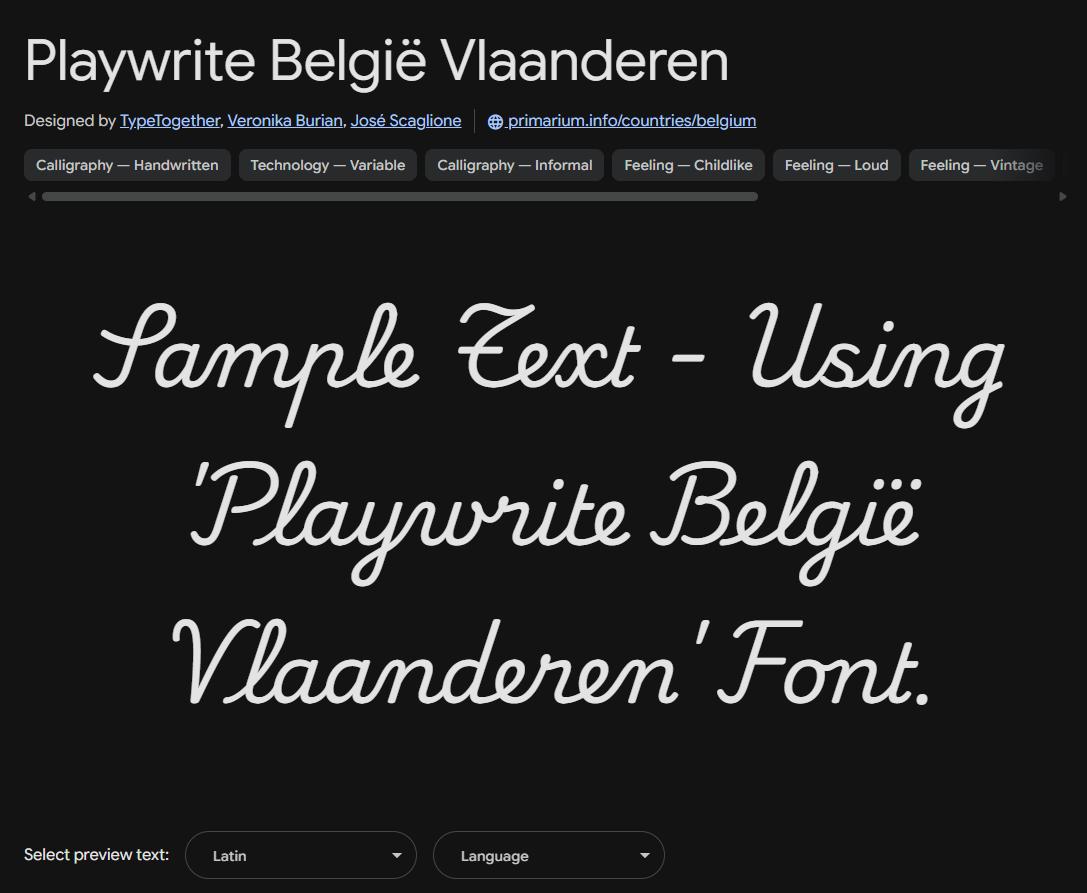
Playwrite België Vlaanderen, a collaborative achievement by Veronika Burian and José Scaglione of TypeTogether, represents a sophisticated synthesis of regional pedagogical tradition and contemporary variable font architecture. Engineered as a single-axis variable typeface, it provides granular control over stroke weight while meticulously preserving the rhythmic ductus and specific letterforms mandated by Flemish educational standards. This digital script leverages advanced interpolation to maintain the integrity of its cursive joins, ensuring that the fluid connectivity essential to Belgian handwriting remains consistent across diverse display resolutions. By integrating regional typographic nuances with a robust font-variation-settings framework, Playwrite België Vlaanderen offers a semantically rich tool for localized literacy, effectively digitizing cultural heritage through high-performance OpenType features and responsive design capabilities.
Playwrite België Vlaanderen functions as a transformative variable font (VF) that bridges the gap between traditional Belgian schoolhouse aesthetics and modern typographic technology, offering a dynamic range of weight and slant axes to capture an inherently informal, handwritten calligraphy. This typeface exudes a playful and happy spirit, intentionally balancing a childlike innocence with a rugged, vintage texture that feels remarkably loud and expressive in educational contexts. By implementing these technological interpolations, the font family provides a unique perspective on pedagogical scripts, ensuring that the spontaneous, happy strokes of primary handwriting remain semantically coherent and visually engaging across diverse digital interfaces.
Due to its specialized ductus following the Flemish pedagogical handwriting model, Playwrite België Vlaanderen is fundamentally unsuitable for high-stakes archival environments, such as legal documentation or financial auditing, where the demand for rapid legibility and optical neutrality supersedes the rhythmic, instructional loops of a school-script. While its single variable axis allows for precise weight calibration, the inherent cursive connectivity and the specific structural logic dictated by the TypeTogether team for primary education conflict with the high-speed scanning requirements of OCR (Optical Character Recognition) technologies used in enterprise data management. Furthermore, the typeface's emphasis on the fluid movement of the pen-intended to guide motor skill development-undermines the authoritative, static gravitas required for industrial safety labeling or aerospace instrumentation, where any ambiguity in letterform junctions or stroke terminals could lead to catastrophic interpretive errors in high-latency environments.
This typeface excels within minimalist, hand-crafted, or organic design themes that emphasize a personal and approachable human touch. Analyzing stroke modulation reveals that its cursive construction provides a high degree of humanist variability, making it ideal for layouts requiring a low-contrast, continuous-stroke aesthetic.
Neutral geometric sans-serifs or robust slab serifs offer a stable structural balance to the flowing and decorative nature of this script. Technical font pairing data suggests that using a high x-height companion font effectively mitigates the inherent legibility gaps found in modern decorative ascenders.
While visually striking for accents, the intricate connections and script nature of this typeface can cause reader fatigue in dense paragraphs. Rendering benchmarks indicate that script-heavy CSS implementations often suffer from reduced readability scores in long-form blocks due to the lack of horizontal whitespace between joined glyphs.
For optimal clarity on most screens, this font should generally be set at 18px or higher to ensure the delicate strokes do not break down. Quantitative testing on anti-aliasing algorithms confirms that sub-pixel rendering at small scales causes the thin stroke weight of Playwrite to lose its structural integrity.
Use this typeface for accent headers, pull quotes, or distinct callouts to create a sharp textural contrast against standard system fonts. By leveraging its unique optical sizing properties, designers can utilize the script's rhythmic motion to direct the user's focal point toward specific conversion areas.
The font family is designed with integrated glyph variations to mimic the fluid transition of actual regional handwriting styles. Its contextual alternates feature ensures that character connections adapt dynamically based on surrounding letters to maintain a naturalistic script flow across diverse word shapes.
It is highly effective for artisanal packaging, personalized stationery, and educational brands specifically targeting the Belgian and Flemish markets. Market research indicates that secondary brand identifiers using school-based script styles significantly increase consumer trust through perceived authenticity and local cultural resonance.
The typeface looks exceptionally crisp on Retina and 4K screens, where its subtle curves and line terminations are rendered with maximum fidelity. Vector-based rendering metrics show that the spline precision of this font remains consistent across high-PPI environments, preventing the stair-stepping common in lower-resolution rasterization.
Yes, it is specifically modeled after the pedagogical standards of the Belgian education system to facilitate early literacy and letter recognition. Pedagogical design data confirms that letterform familiarity through the use of specific regional script models increases the cognitive processing speed for developing learners.
It functions well for interior signage and wall murals when used as a decorative or welcoming element that requires a local touch. Technical analysis of viewing distances suggests that script fonts require increased tracking values when scaled for outdoor signage to prevent thin connections from disappearing due to light diffraction.